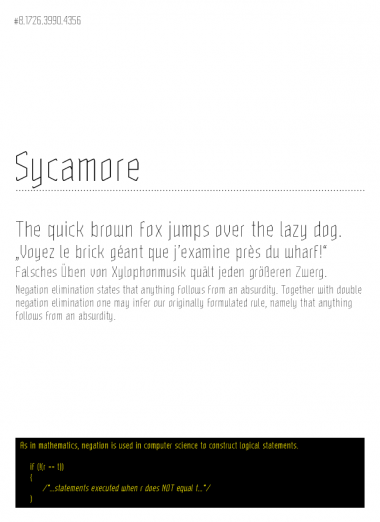
Very nice, with an hint of blackletter. 10/10
I changed the name from "Sycamore" to "Sycamo Light", because I realized that there was an elder typeface called "Sycamore" and because there is a Book version for better legibility in small sizes now, too.